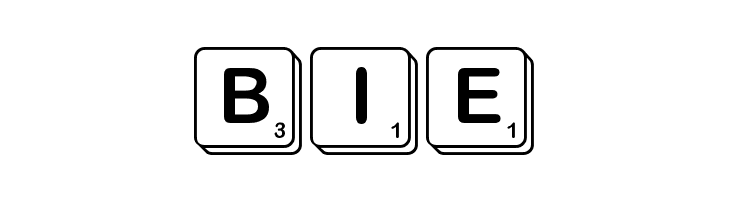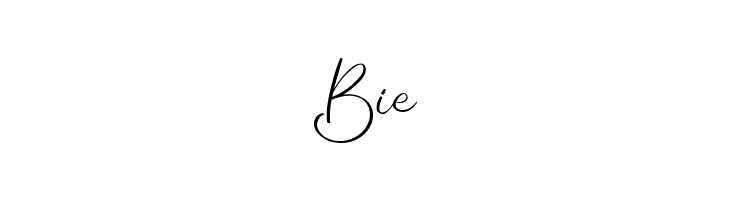
A lively script font with a handwritten, dynamic style.
A lively, cursive font with a modern, handwritten style.
A playful font resembling Scrabble tiles with bold letters and numbers in square borders.